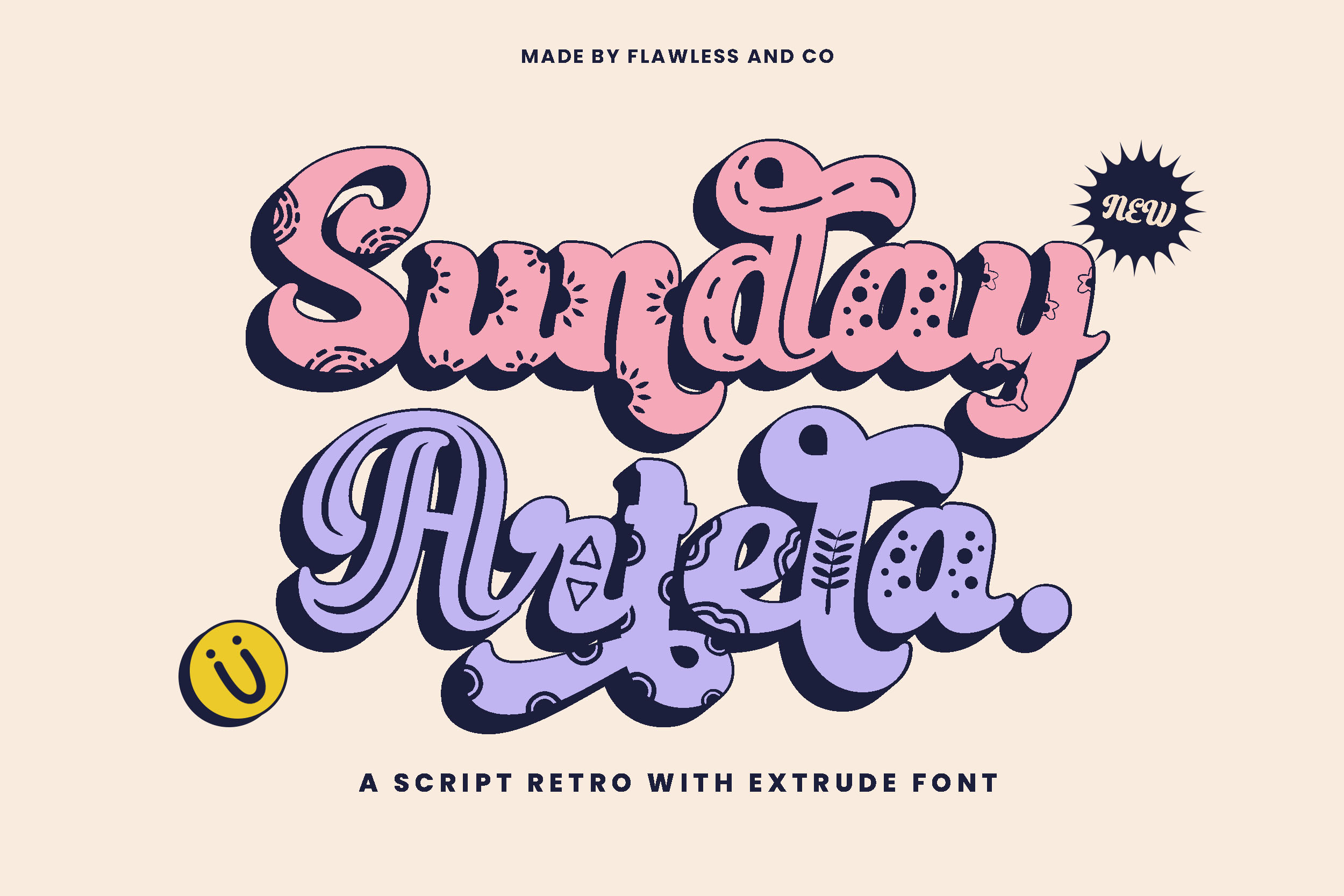
Sunday Artela-Fun Script Retro Font
Introducing "Sunday Artela," a font that effortlessly blends playful script elements with a retro charm, creating a nostalgic yet contemporary feel. This unique typeface doesn't just stop at capturing attention — it transports your designs to a world where every letter tells a story. Sunday Artela doesn't just bring letters to life; it introduces a dynamic trio of styles — regular, solid, and fun — adorned with patterns in fun styles that add an extra layer of delight to your designs.